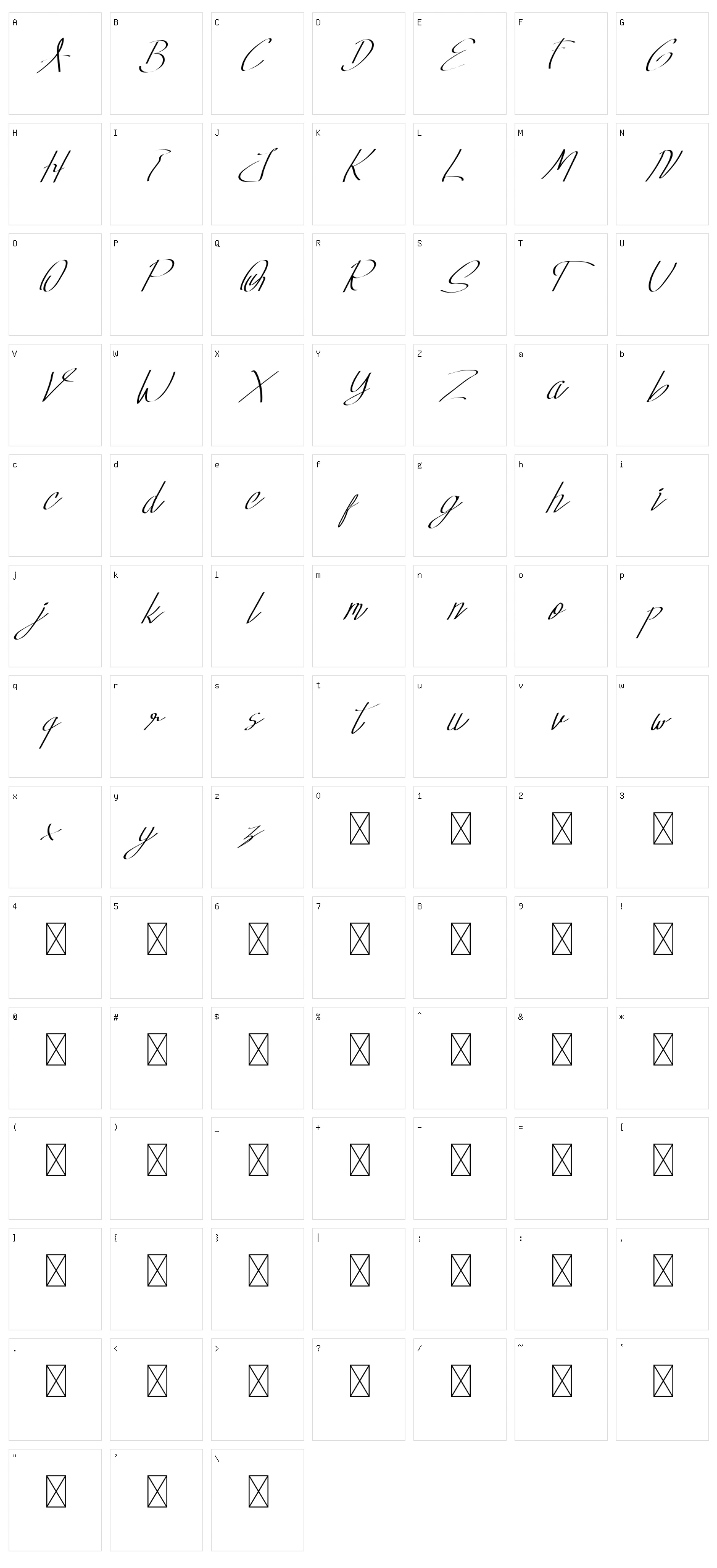
The free font Long Knive is carefully designed by Edric Studio, showcasing a thoughtful balance of creativity and usability and falls under the Script font style. When you download the ZIP file, it contains only 11.49 KB of font files, making it lightweight and quick to download. Please review the license details below to understand permitted usage and distribution rights. If license information is not available, we recommend using this font for personal projects only or contacting the author directly for commercial usage permissions.